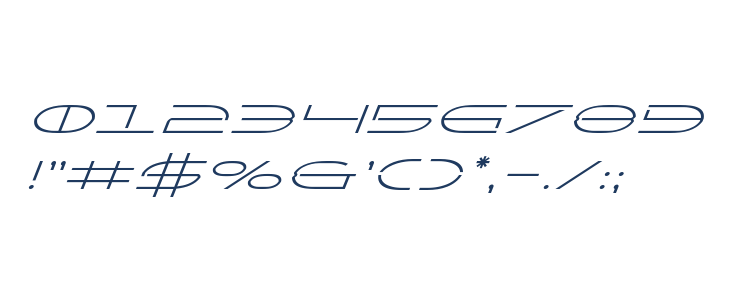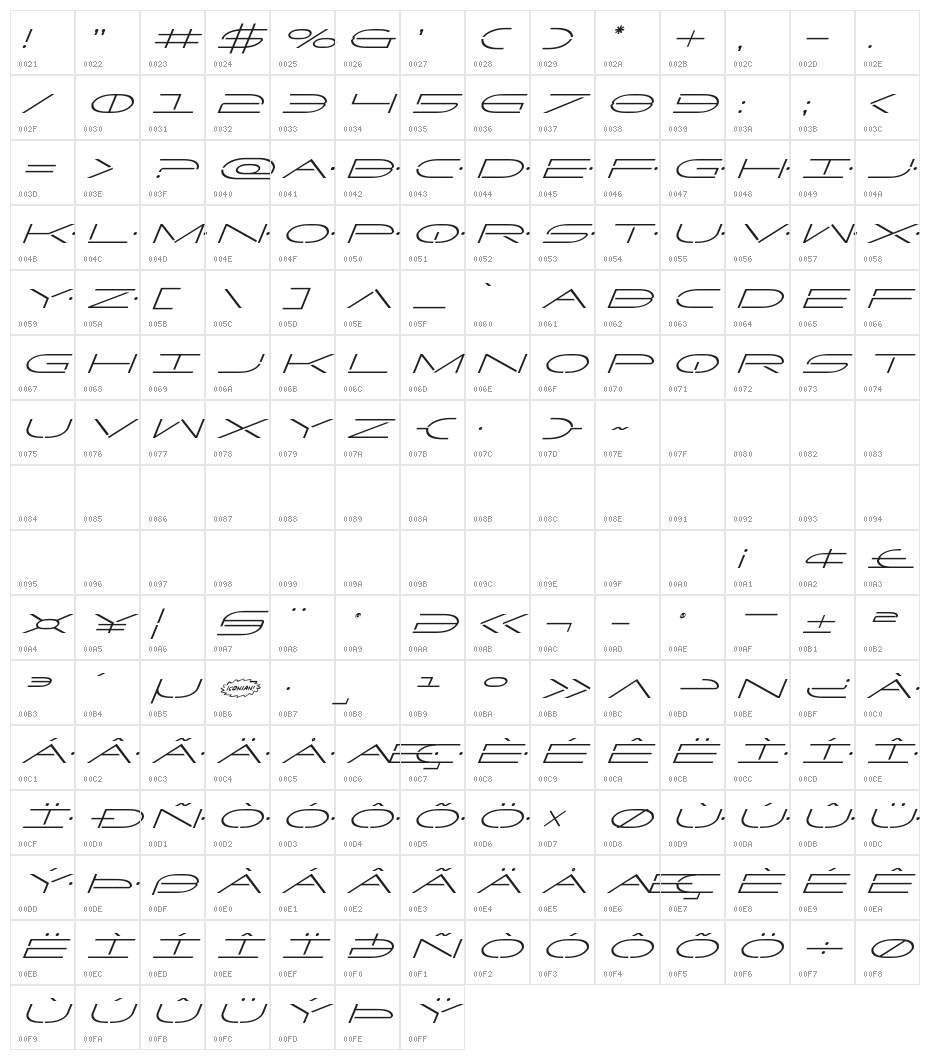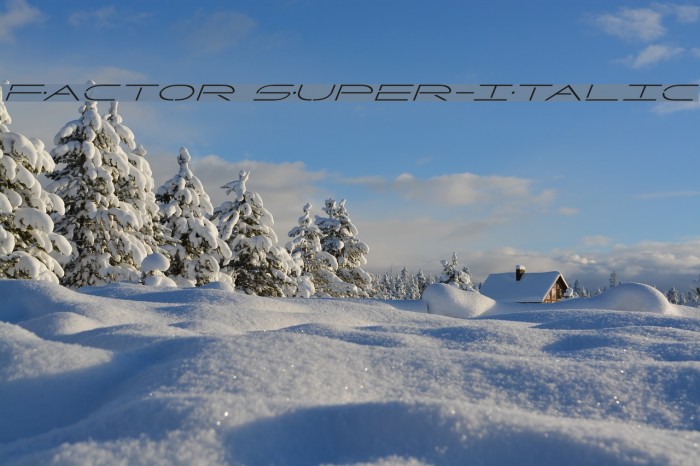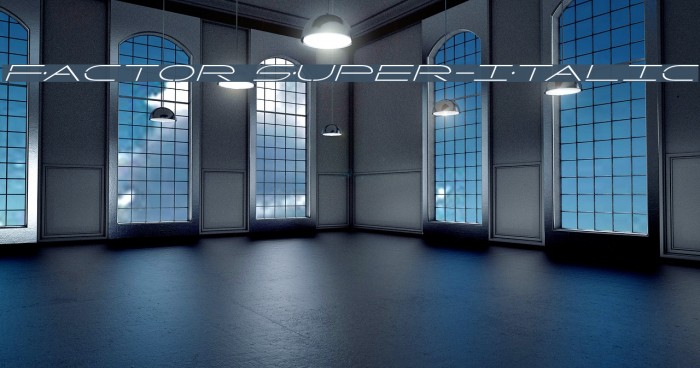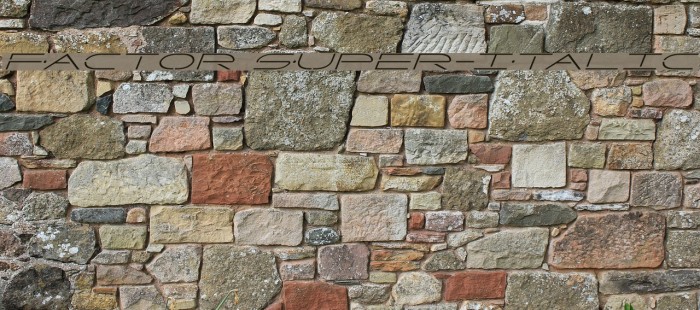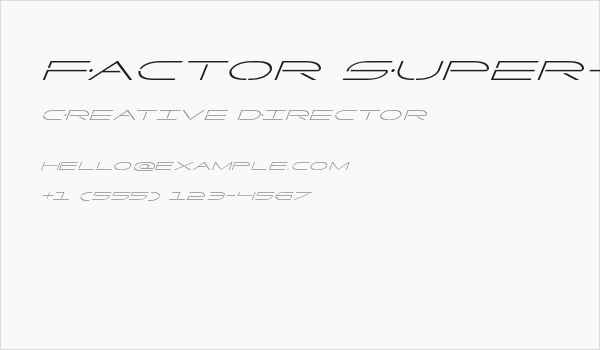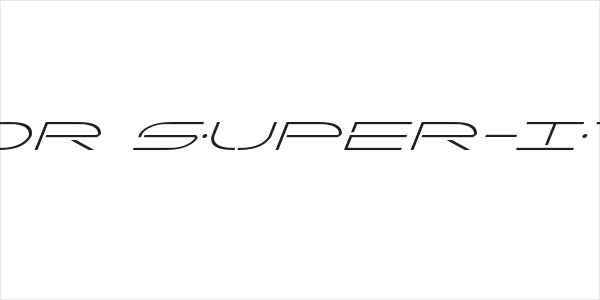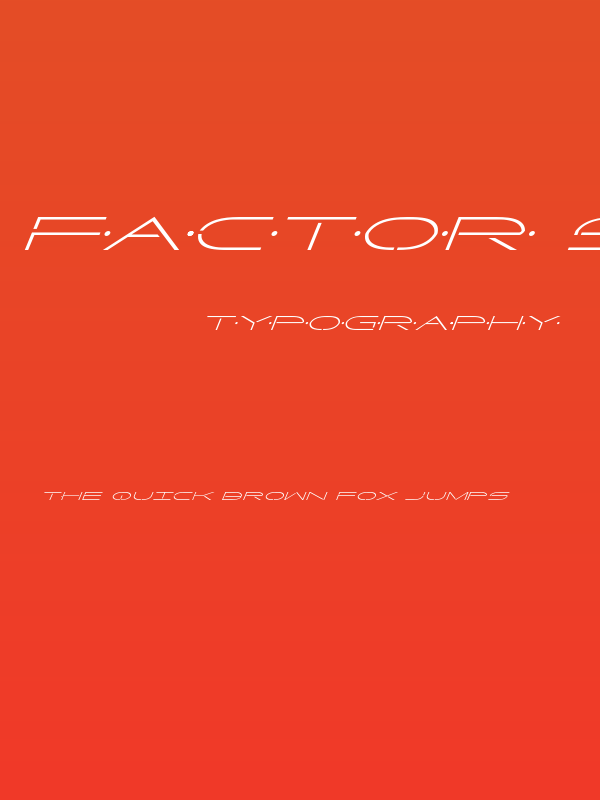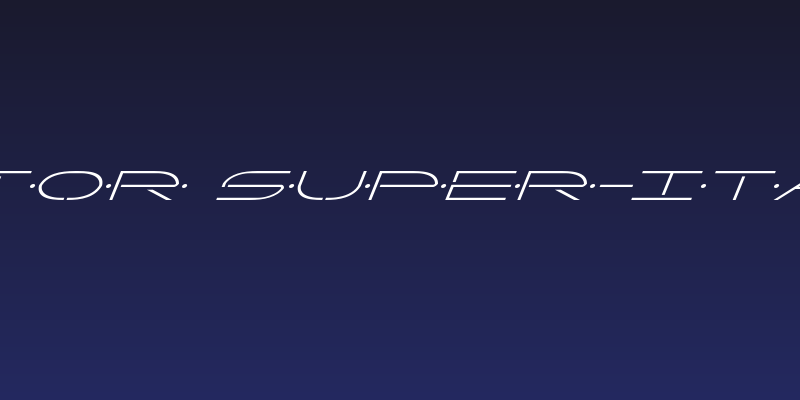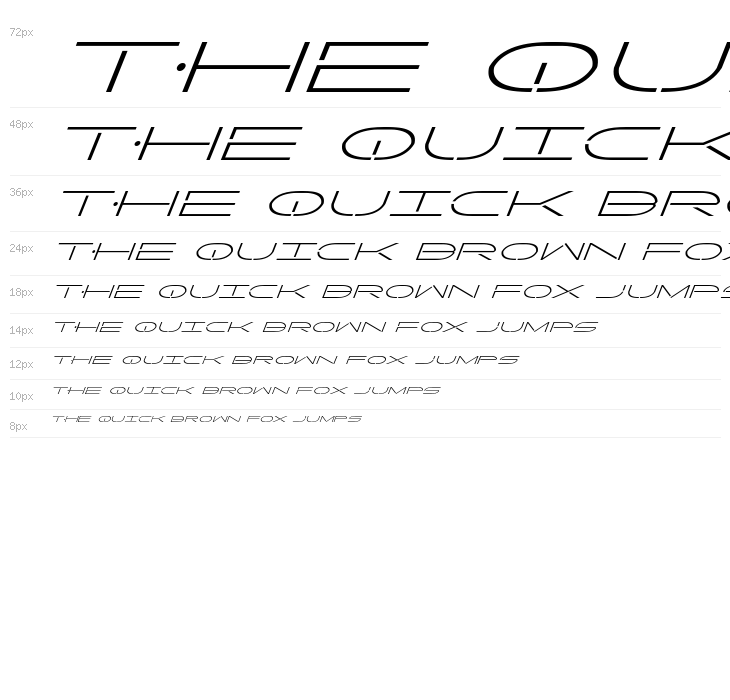
Factor Super-Italic Font
Factor Super-Italic Description
This font features a sleek, futuristic design with a distinct italic slant, giving it a dynamic and forward-moving appearance. The characters are composed of thin, continuous lines with a consistent stroke width, creating a streamlined and modern look. The uppercase and lowercase letters maintain a uniform height, enhancing readability while preserving the font's unique style. The numerals and special characters are crafted with the same attention to detail, ensuring a cohesive visual experience. This font's minimalist aesthetic is ideal for projects that require a contemporary and innovative touch.